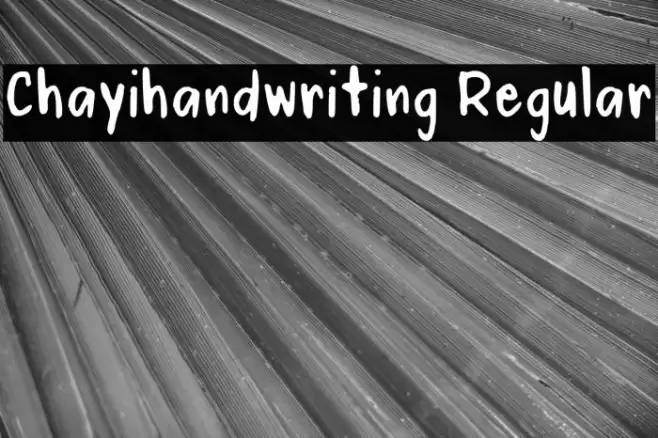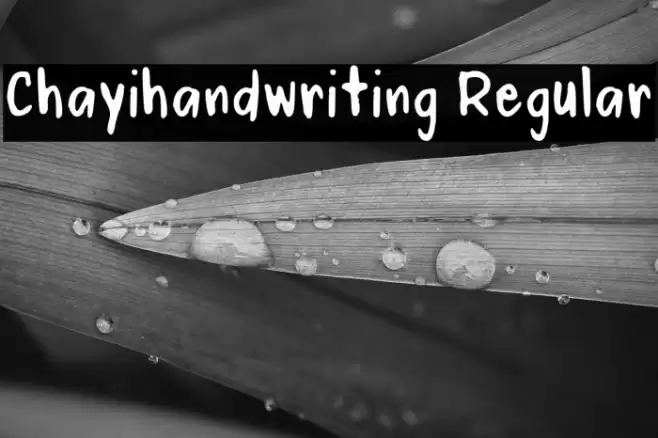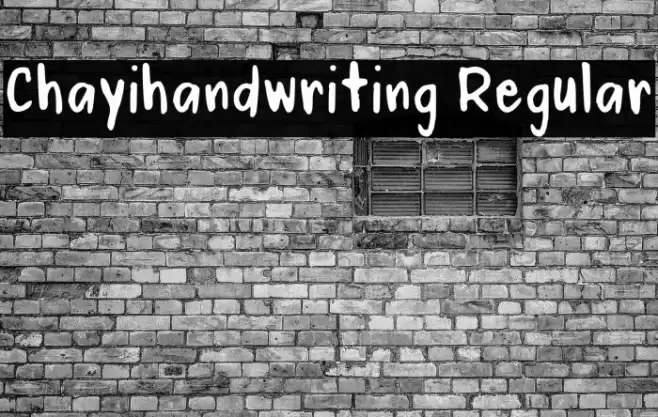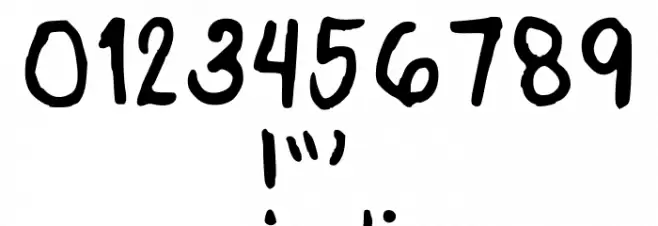
Chayihandwriting Regular Font
Chayihandwriting Regular Description
This font exudes a playful and casual handwritten style, characterized by its irregular strokes and organic flow. The letters are bold and slightly uneven, giving a personal and informal touch. The uppercase and lowercase letters maintain a consistent style, with rounded edges and a friendly appearance. Numbers and special characters follow the same aesthetic, ensuring a cohesive look across all text elements. This font is perfect for projects that require a personal, approachable, and creative feel.
A playful, bold handwritten font with an informal and friendly style from Uncategorized fonts.
- Proposed Projects: Ideal for greeting cards, children's books, personal blogs, and creative branding projects.
- Overall Style: Casual, Playful
- Use Case: Logos, Headlines, Informal Text